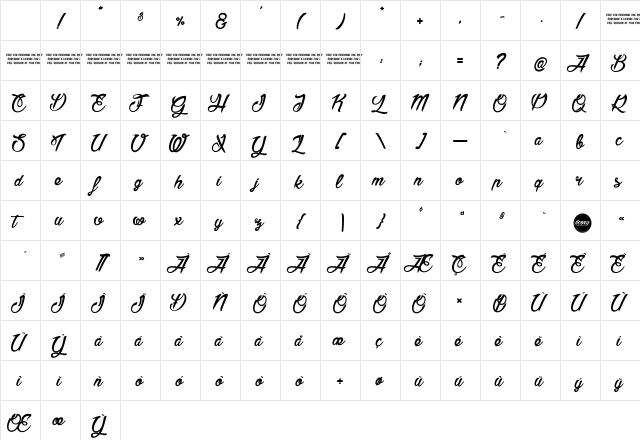
America and Stars Regular Free Font
America and Stars Regular
Foundry: dcoxy Medina Gregory
Designer: dcoxy Medina Gregory
Design Context for America and Stars
America and Stars is a composed and adaptable typeface that performs quietly and consistently across a wide range of design contexts.